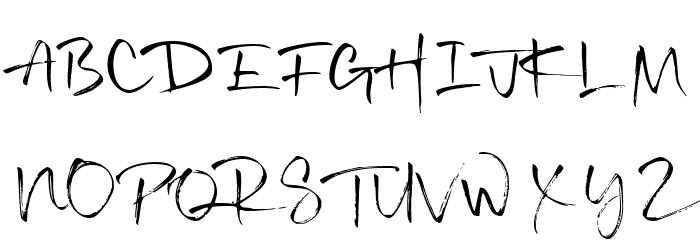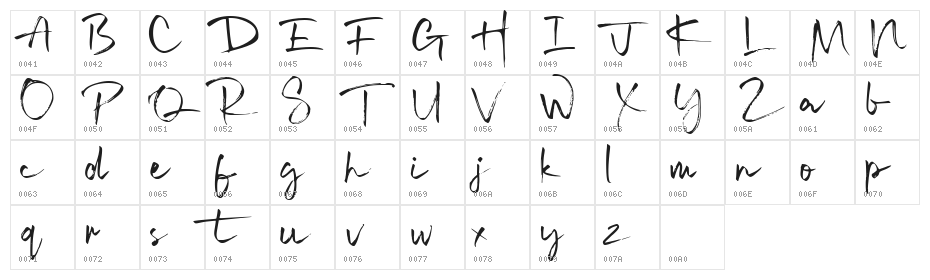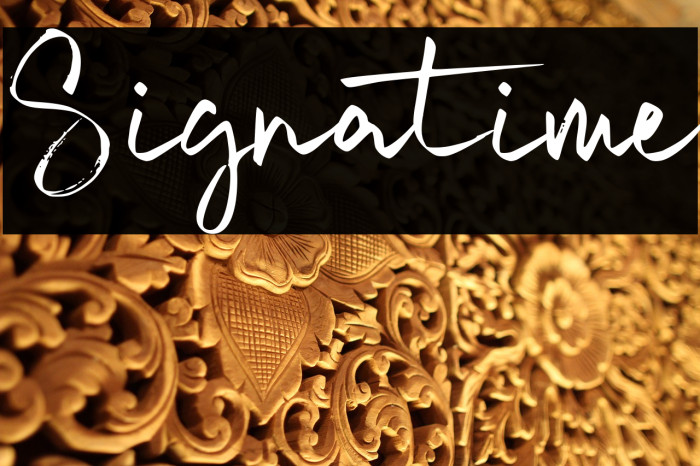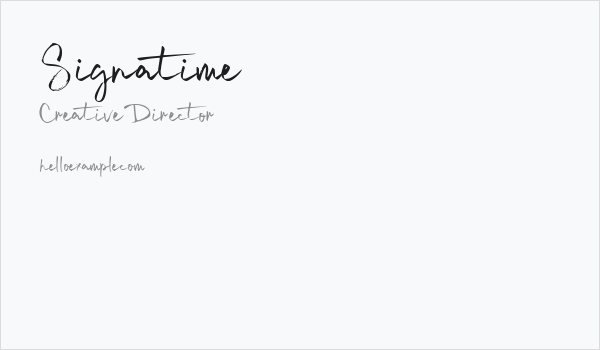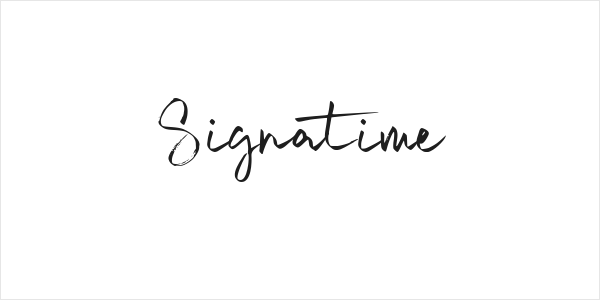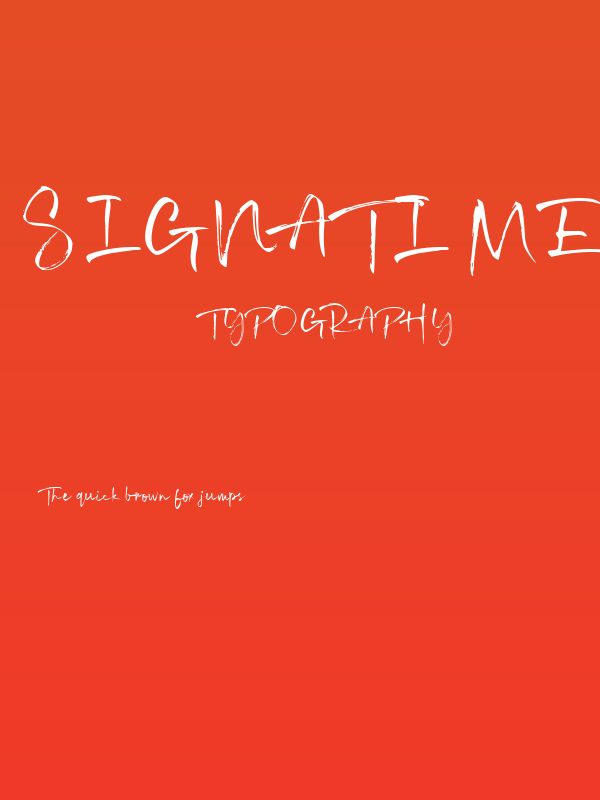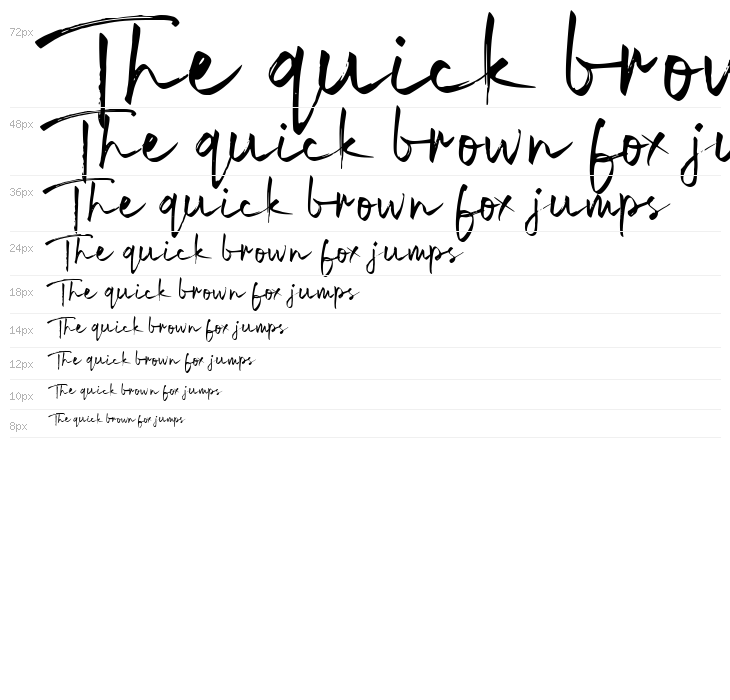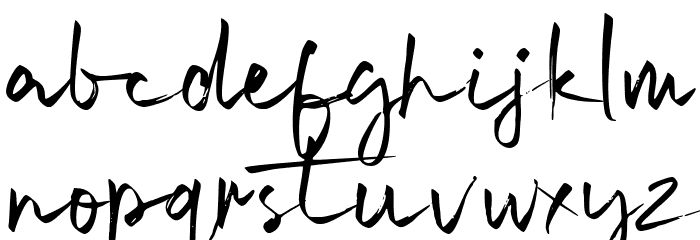
Signatime Font
Signatime Description
This font exudes a dynamic and expressive style, characterized by its handwritten appearance. The strokes are uneven and varied, giving it a lively and spontaneous feel. The uppercase and lowercase letters maintain a consistent flow, with some letters featuring elongated tails and loops that enhance its artistic flair. The numbers and special characters are crafted with the same attention to detail, ensuring a cohesive look across all glyphs. This font is perfect for projects that require a personal touch or a creative edge, as it captures the essence of handwritten notes or signatures.
| Use Case | Logos, Invitations, Creative projects |
| Proposed Projects | Ideal for branding, invitations, greeting cards, and creative projects that require a personal touch. |